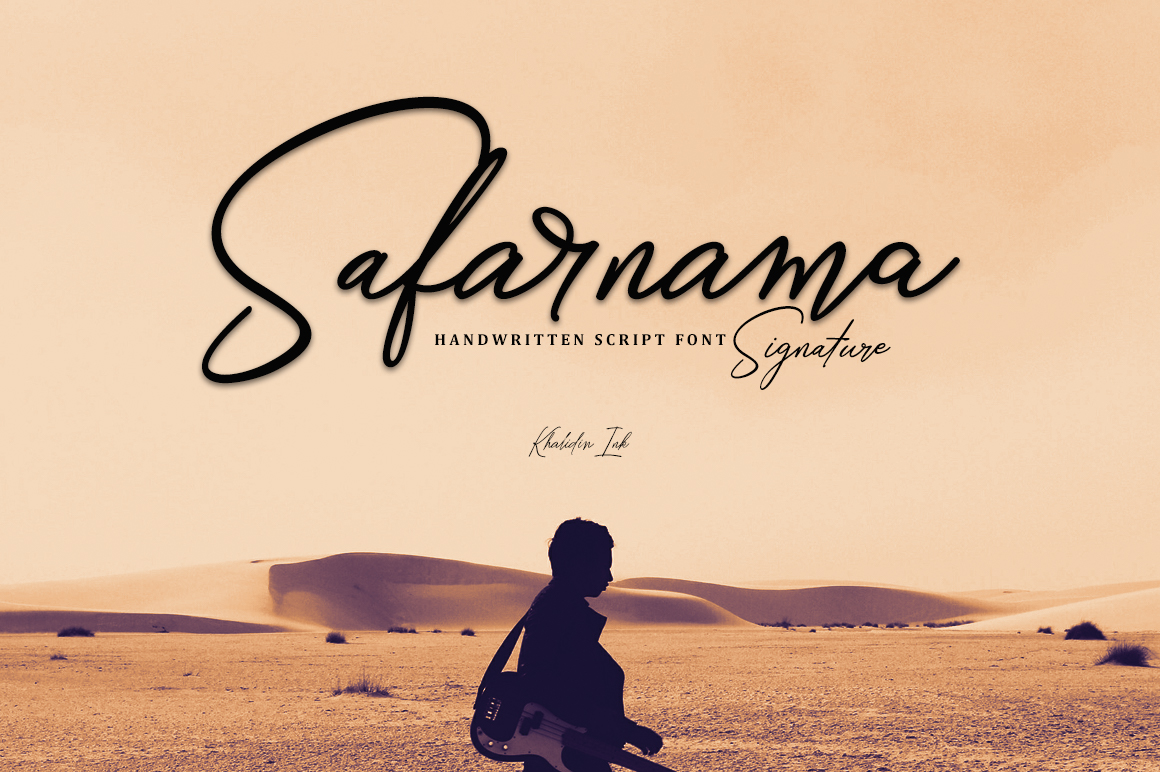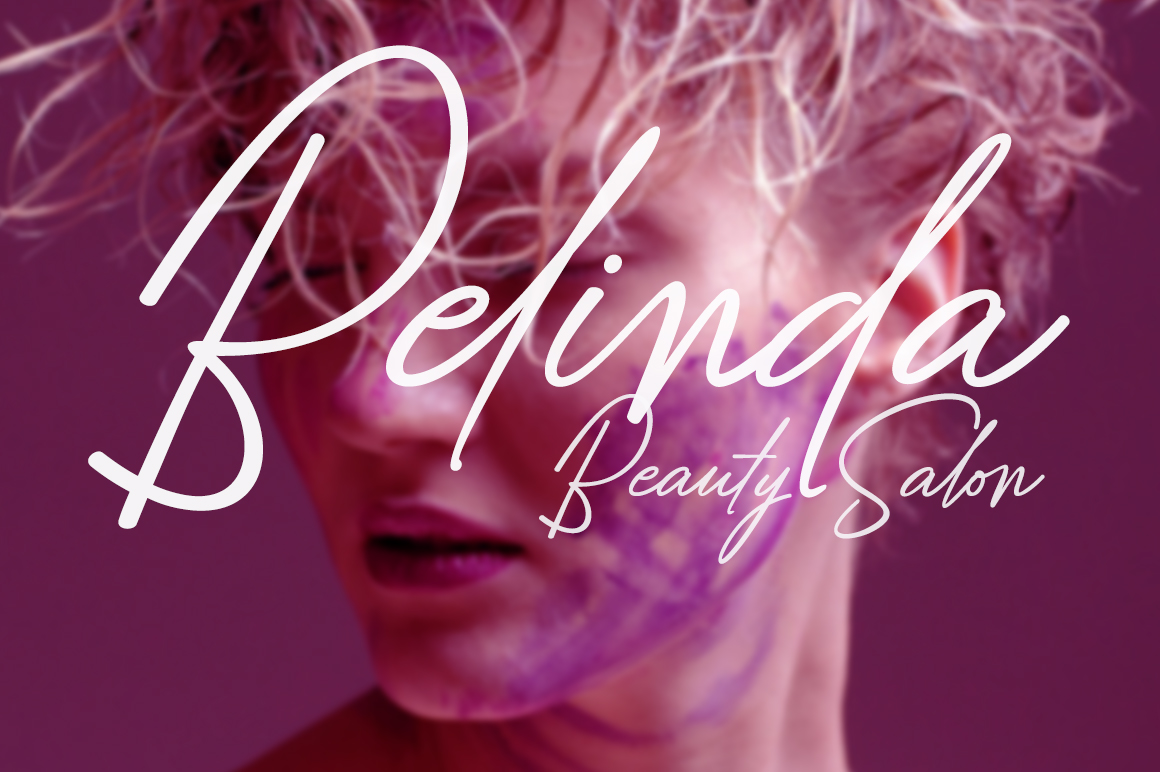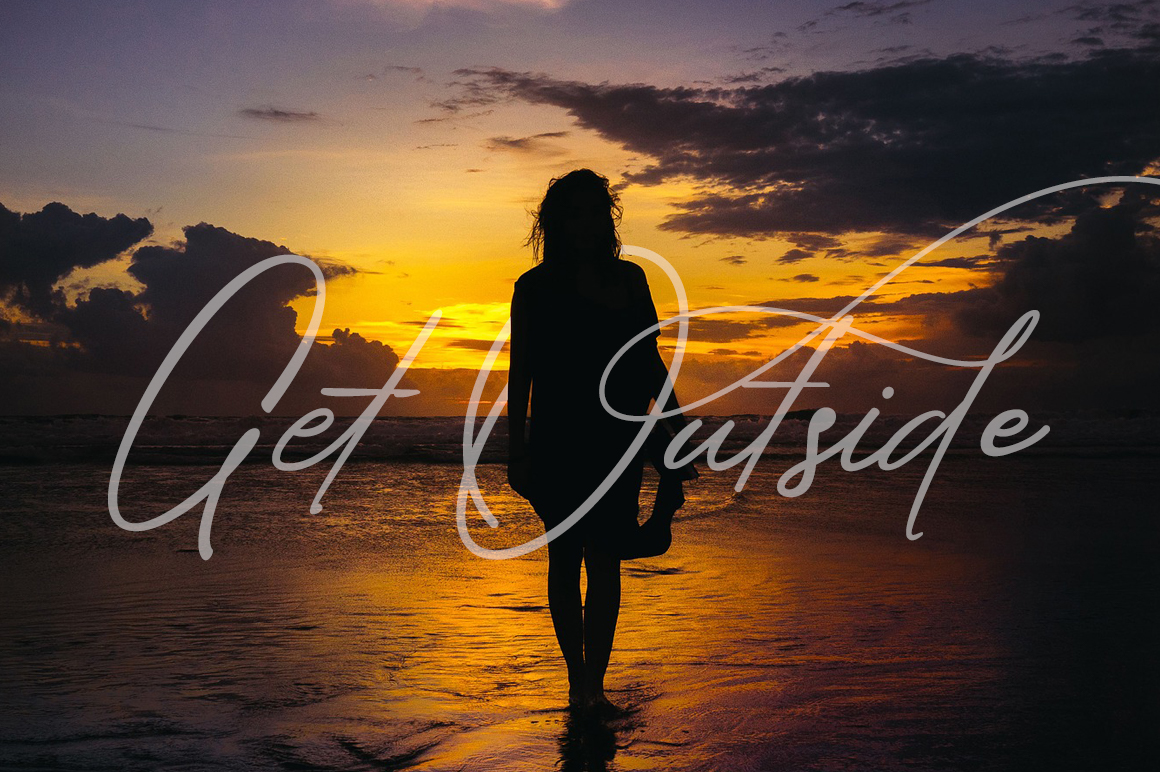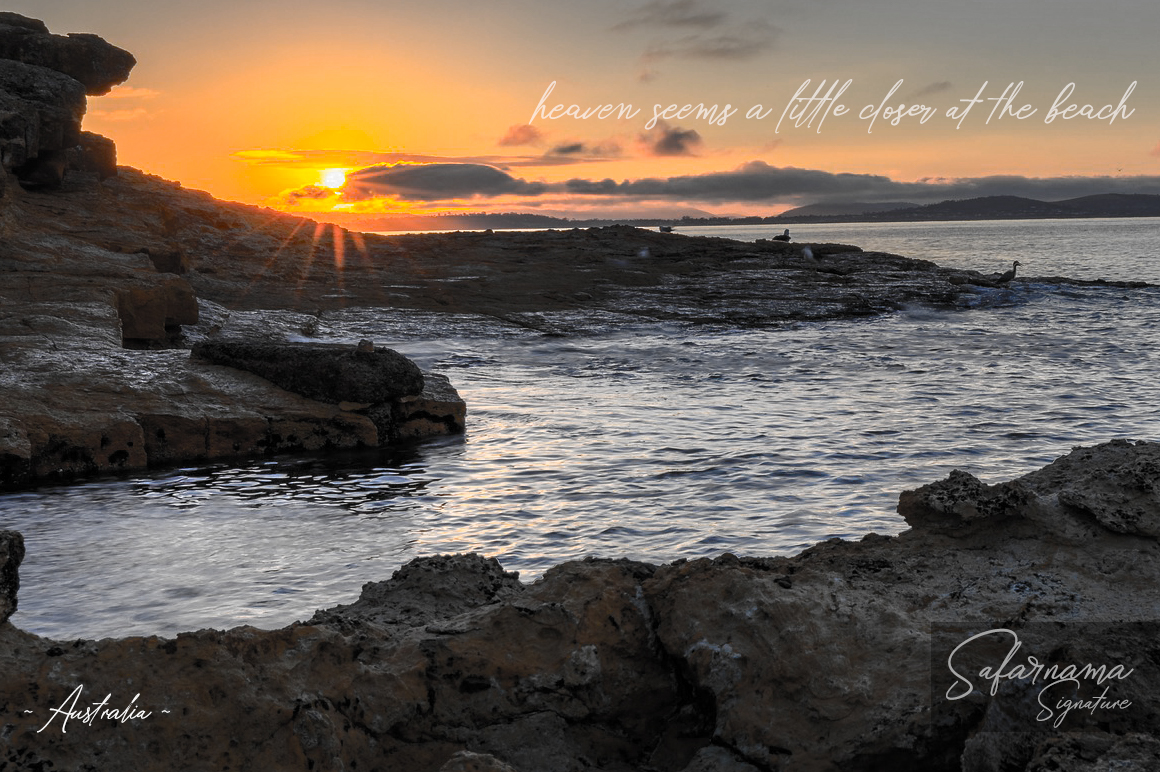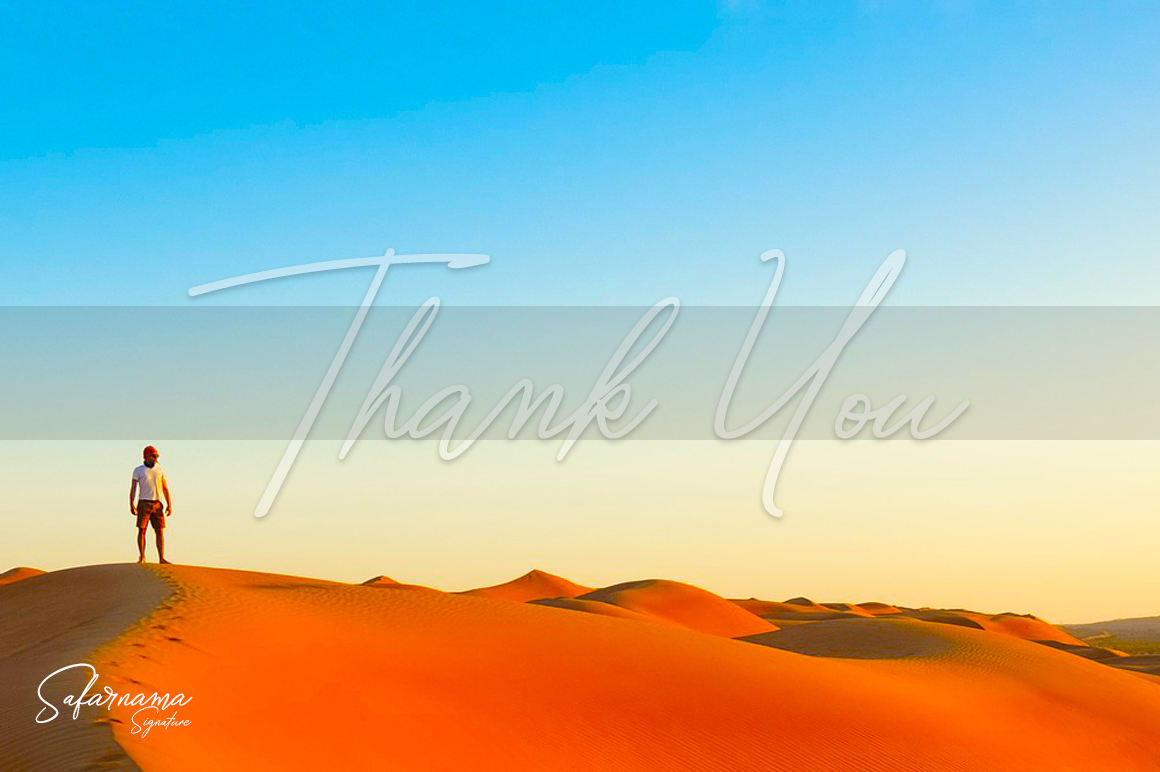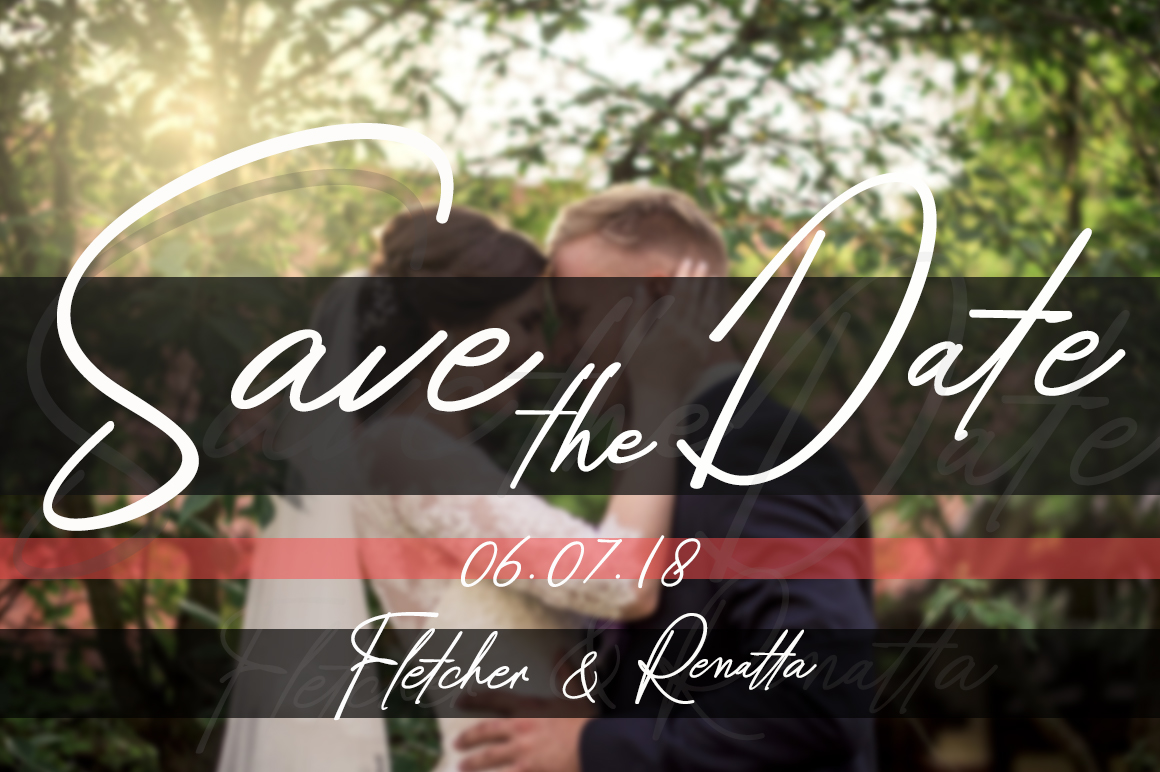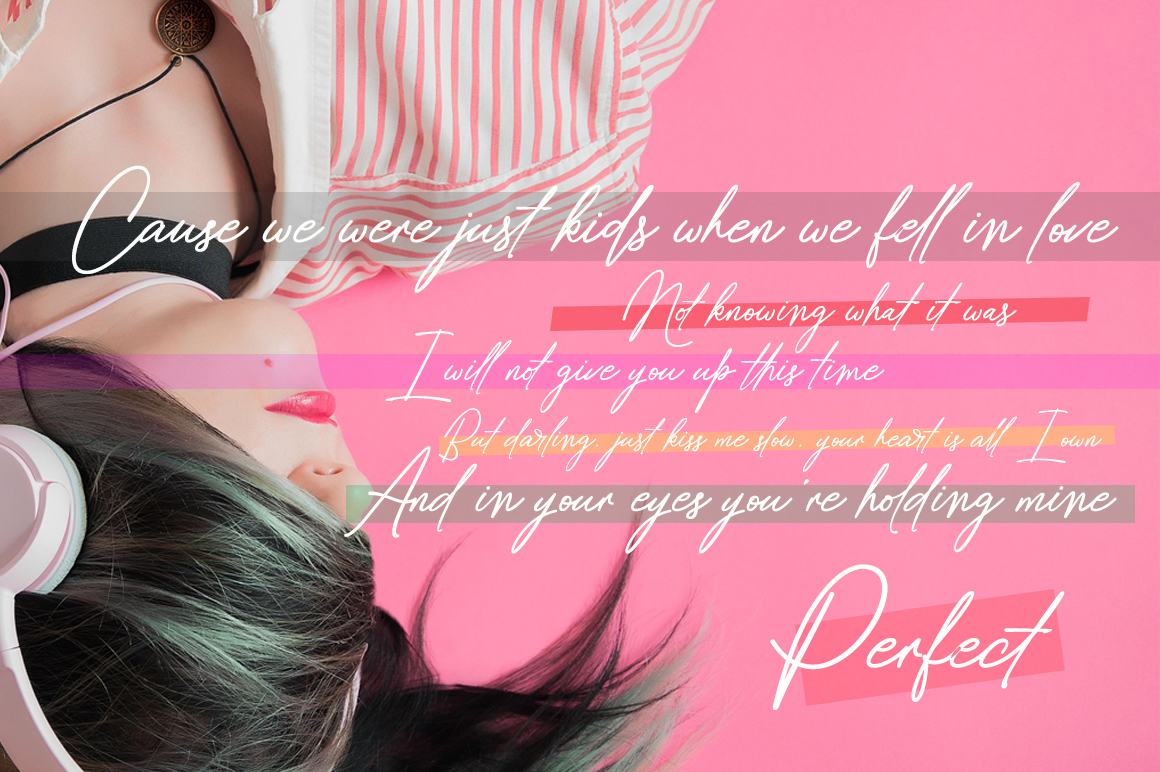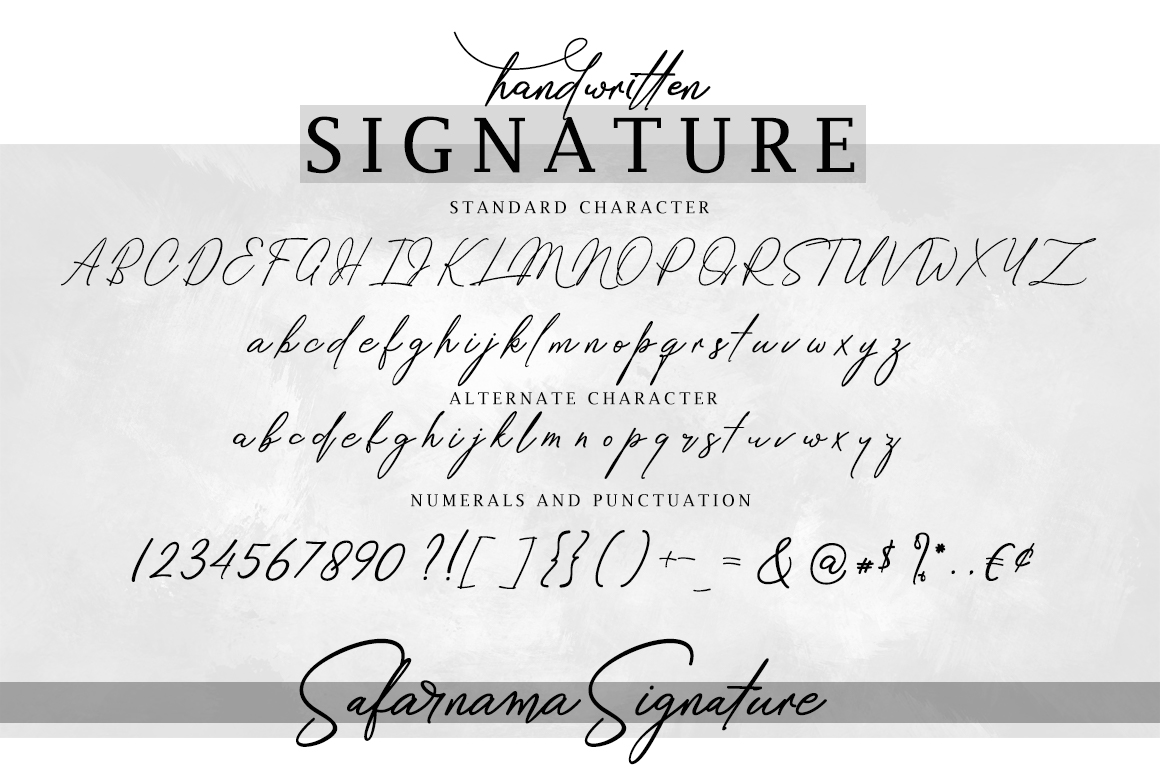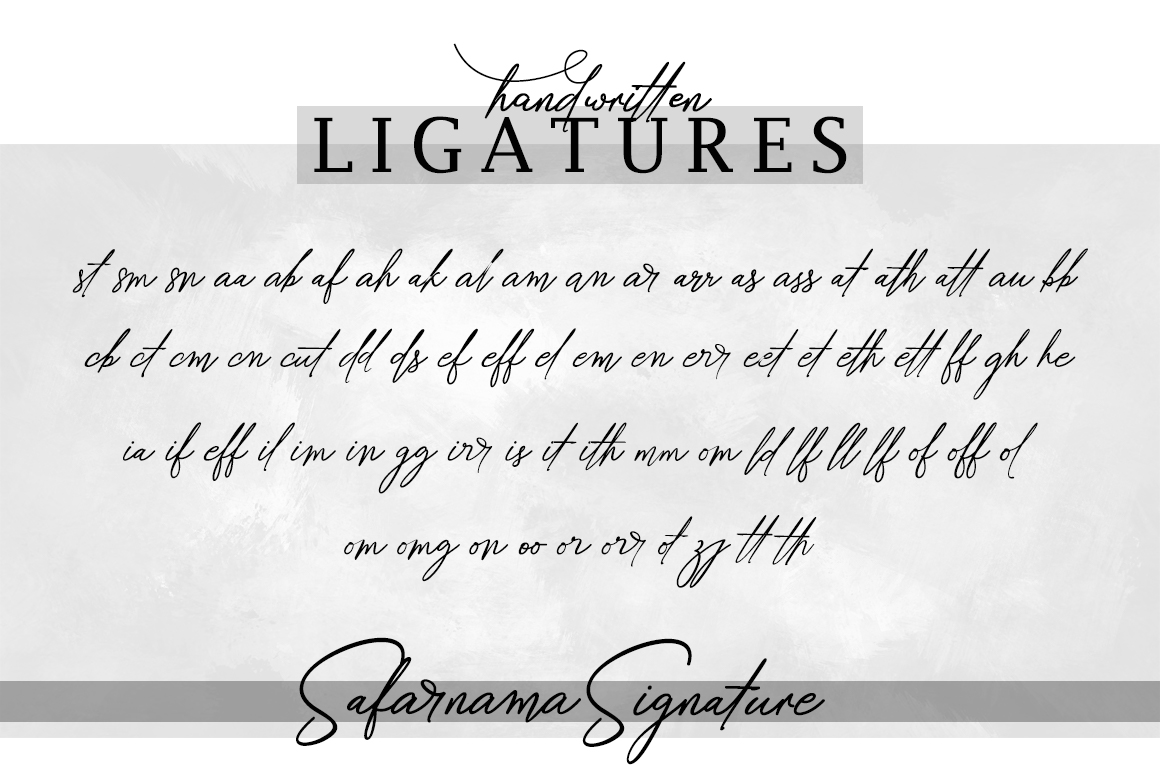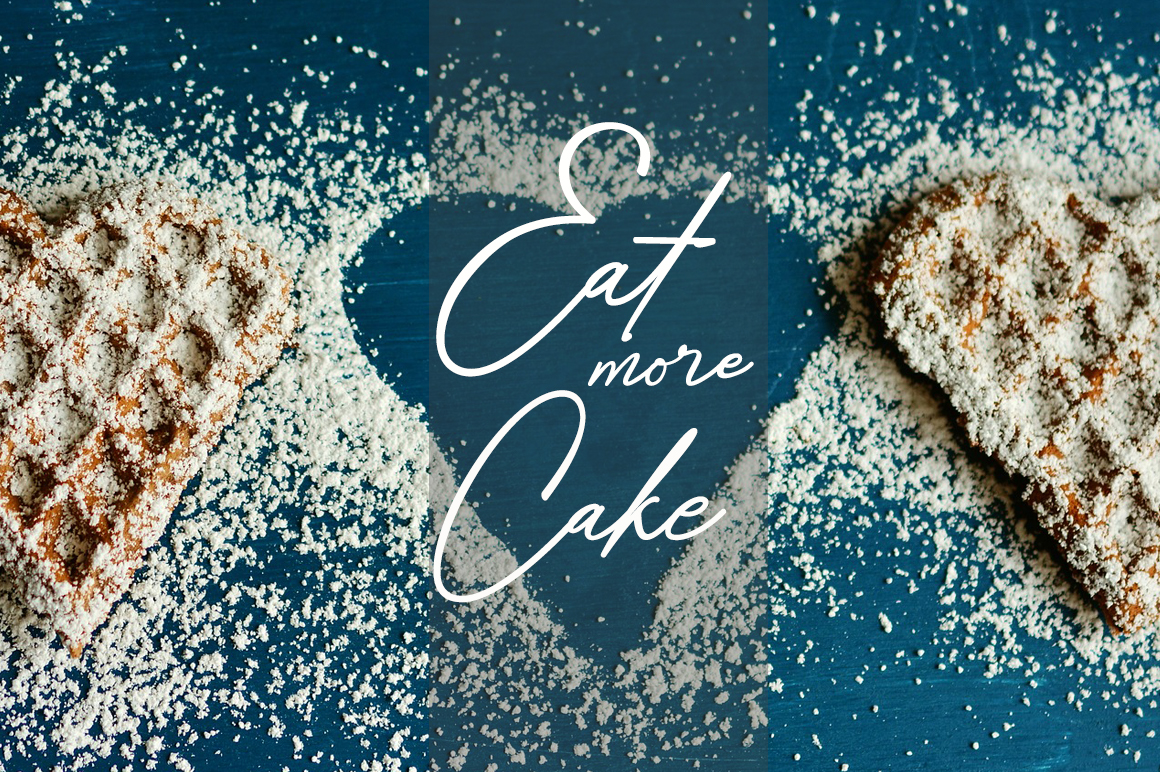
Safarnama Font
About Safarnama Font
Safarnama Signature is a gorgeous and fashionable handwritten script. Give your projects typographic harmony with this well balanced and casual script font.